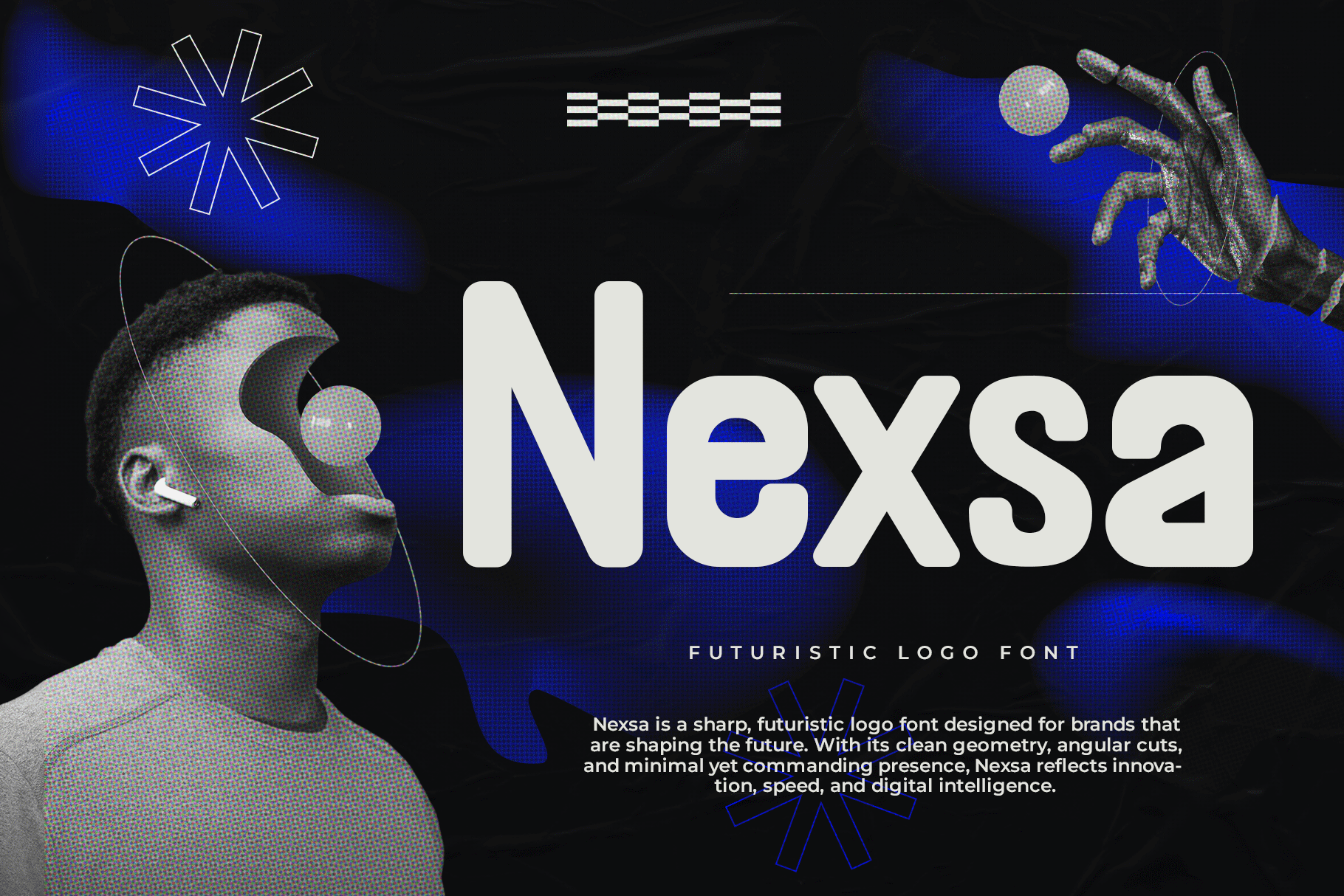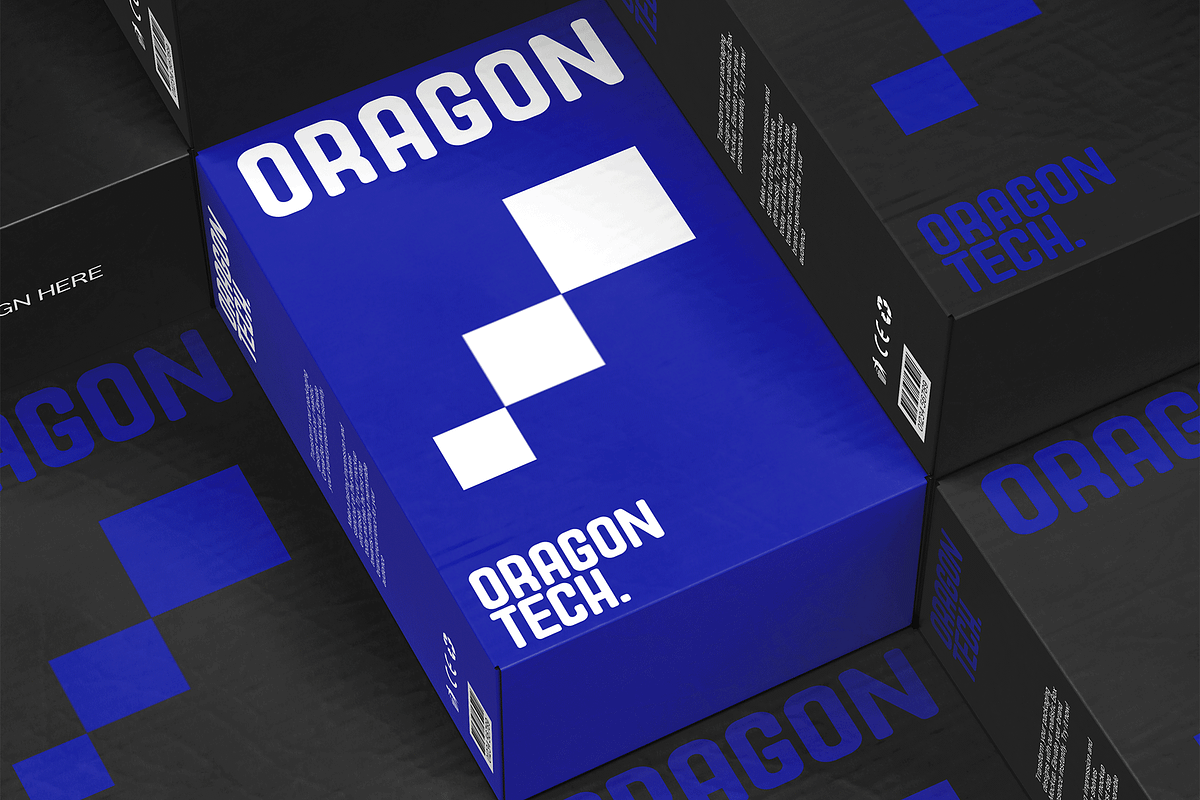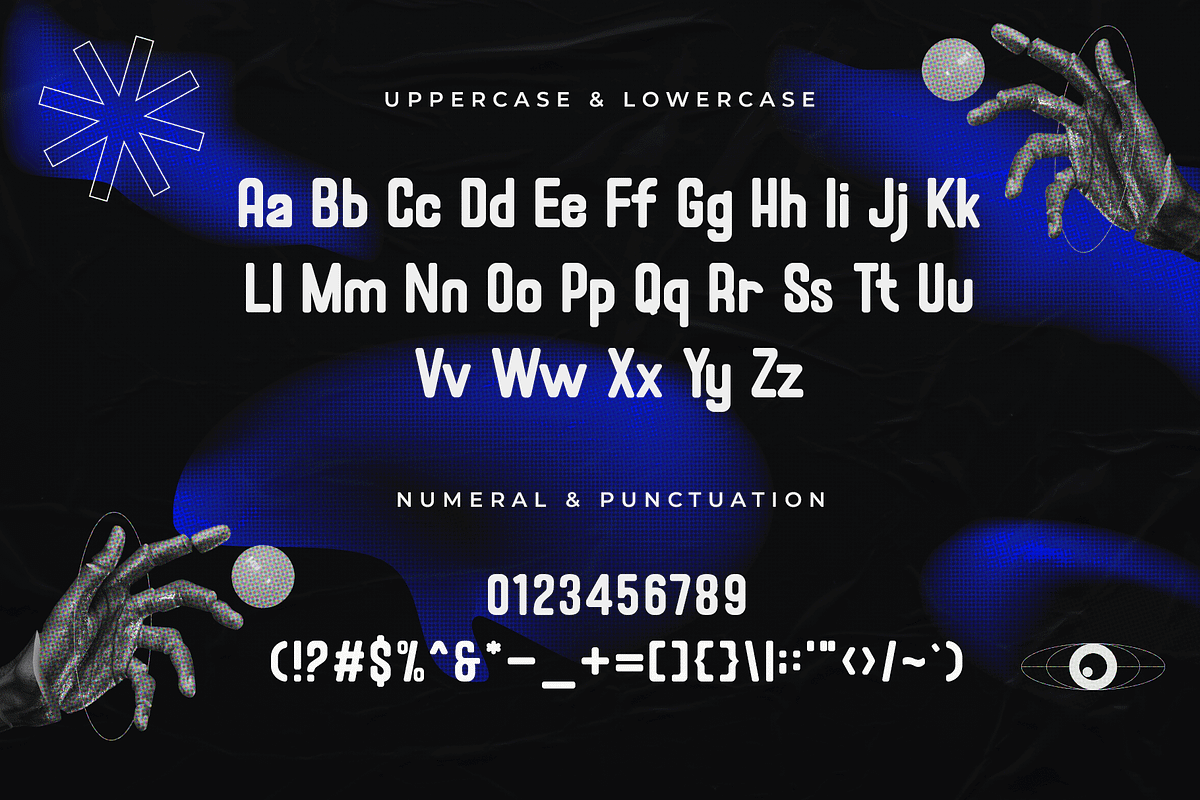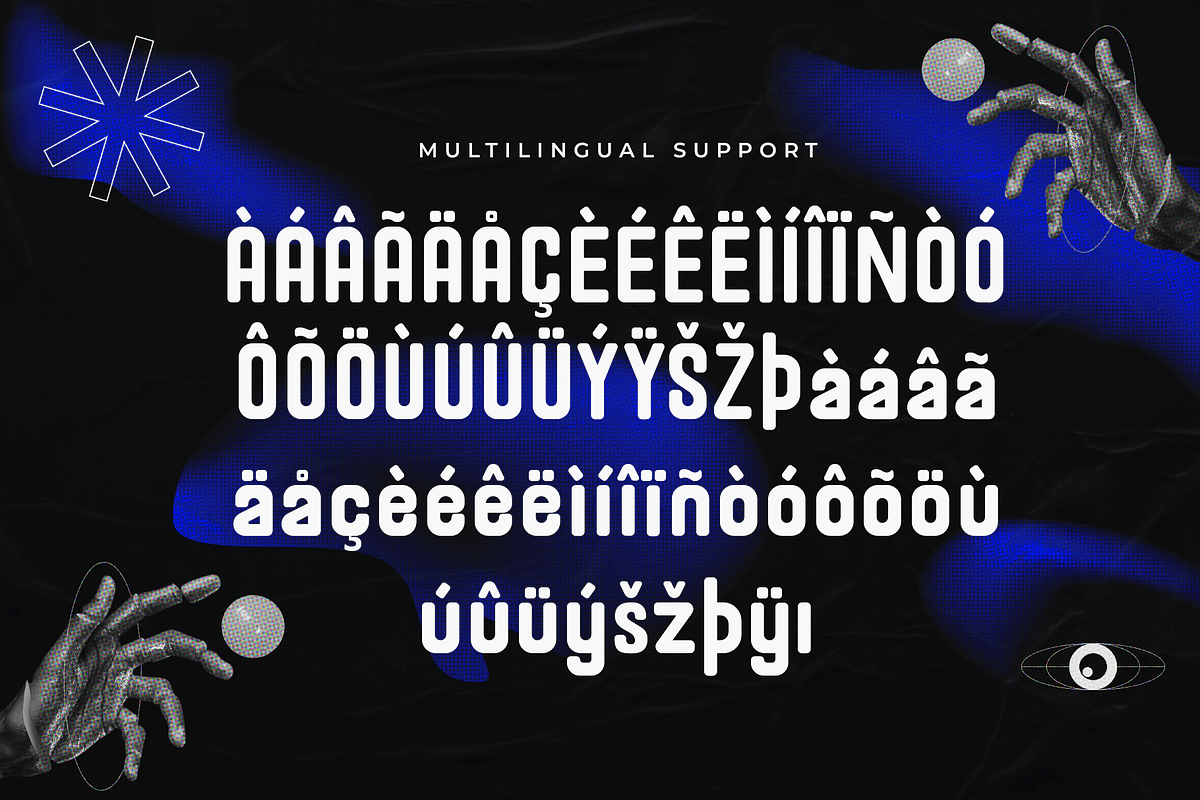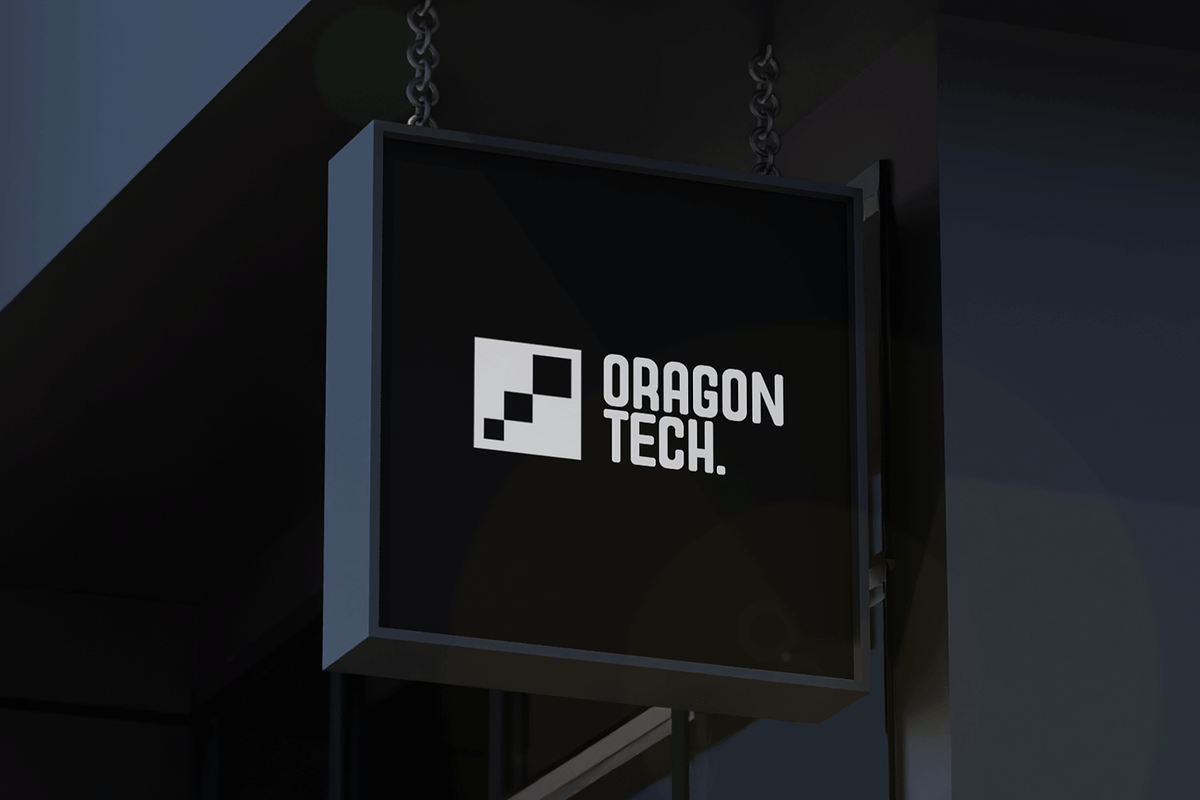
Nexsa – A Futuristic Logo Font
Nexsa is a futuristic logo font designed for forward-thinking creatives and brands that want to make a bold, modern statement. With its sleek lines, sharp edges, and geometric structure, Nexsa brings a sci-fi-inspired aesthetic that's perfect for tech startups, gaming, digital branding, UI/UX interfaces, and innovative product design.
The font’s clean and minimal form allows it to maintain legibility while still exuding a strong, high-tech personality. Whether you're working on a cutting-edge app, a digital storefront, or a visionary logo, Nexsa delivers an impactful futuristic presence.
Available in uppercase with alternate characters and multilingual support, Nexsa gives you the tools to design with clarity and creative edge.